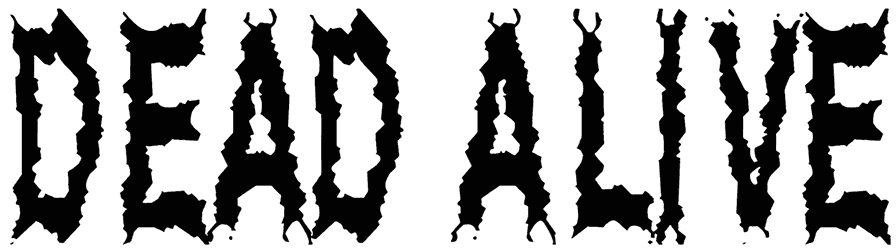
Dead Alive Font
Has anyone requested additional style in their text? So there is no doubt that Dead Alive can help. This horror font is a completely worthy and accurate font for all designers who want to be recognized with their special designs and fit in the world of competition.
This evil font provides a game with letters, which, even though it doesn’t have lowercase letters, still contains some flavored details. Using this font, you can create a memorable logo, poster, and teaser.